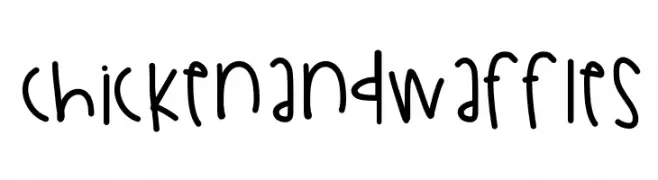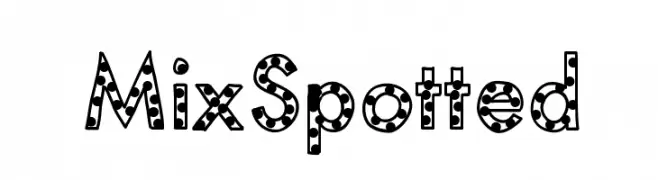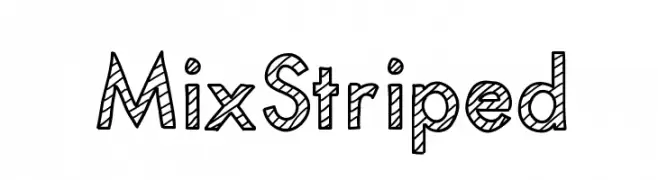
A playful handwritten font with a casual and friendly style.
A playful, handwritten font with a whimsical and casual style.
A playful, handwritten font with tall, narrow letters and thin strokes.
A bold, decorative font with a playful spotted pattern inside each character.
A bold, striped font with a playful and dynamic appearance.
A playful, handwritten font with quirky, energetic characters.